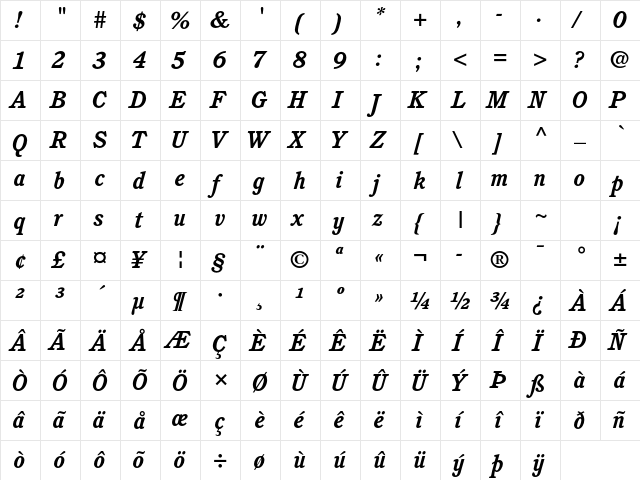
ITC Cushing Std Bold Italic Font Preview
| Designer | Vincent Pacella |
Design Context for ITC Cushing Std Typeface
ITC Cushing Std is a composed and adaptable typeface that performs quietly and consistently across a wide range of design contexts. The dynamic lean of this cut emphasises speed and emphasis in any layout. The heavy weight commands attention and anchors typographic hierarchies.
Pro Tip: Try ITC Cushing Std for annotation and caption copy alongside an upright companion — the contrast in angle creates a dynamic but ordered typographic system.